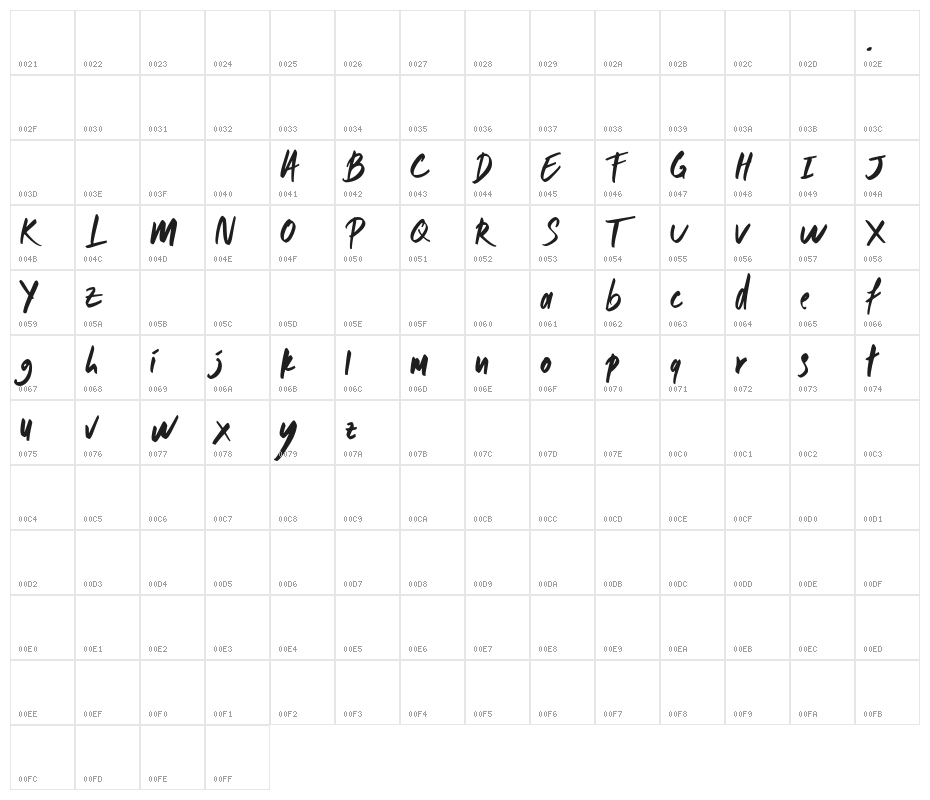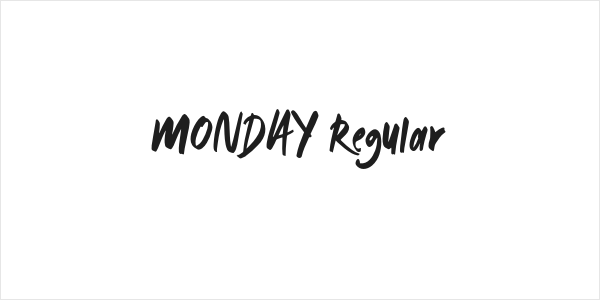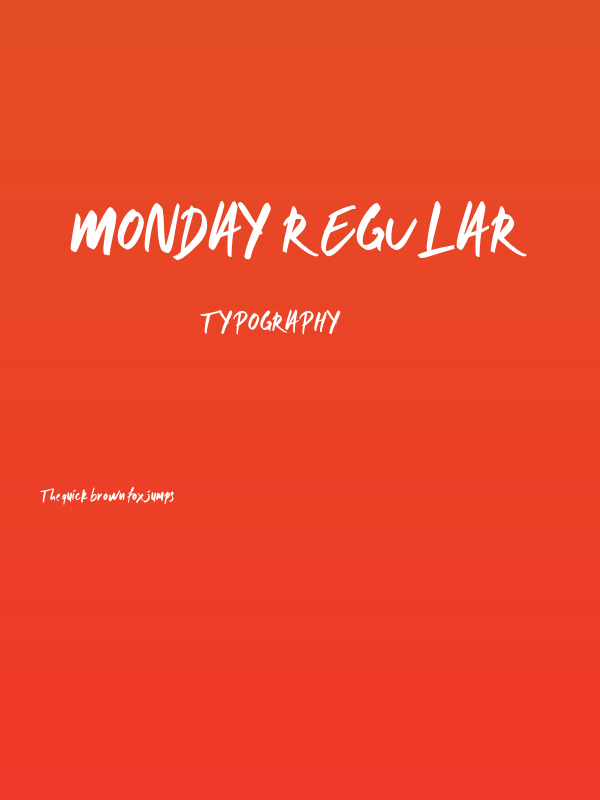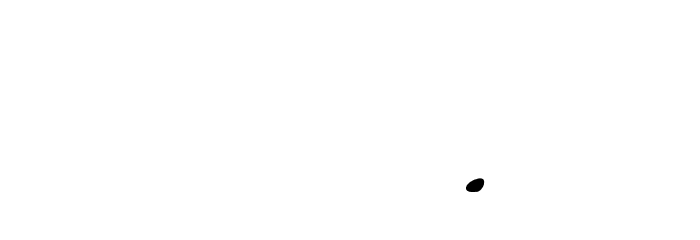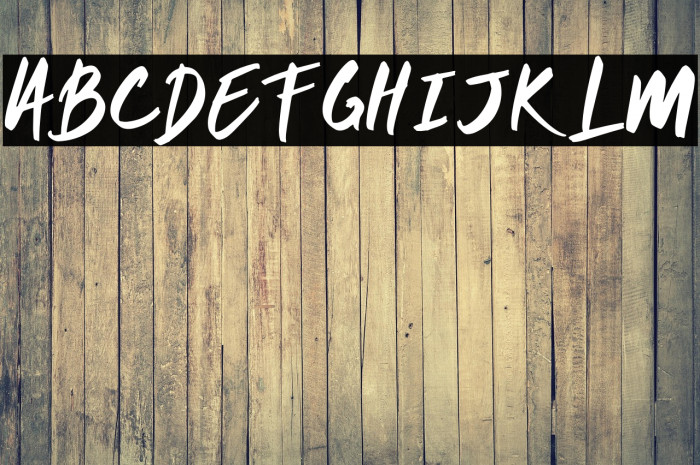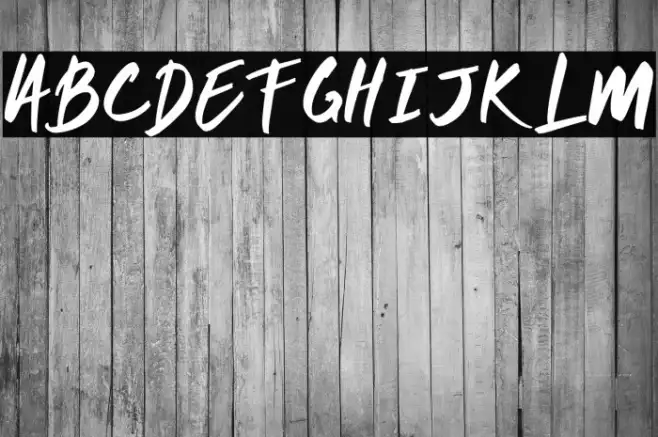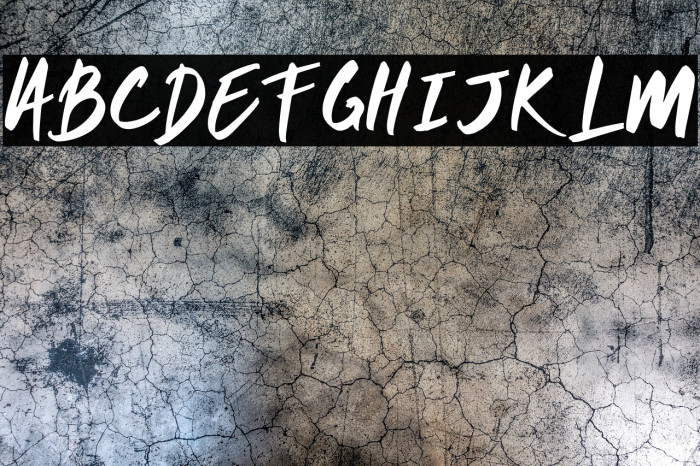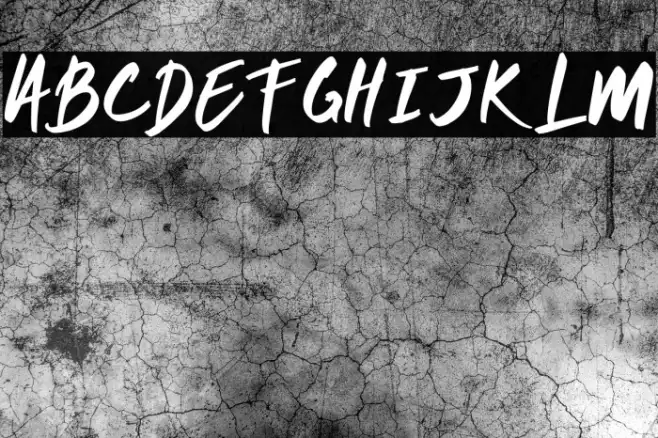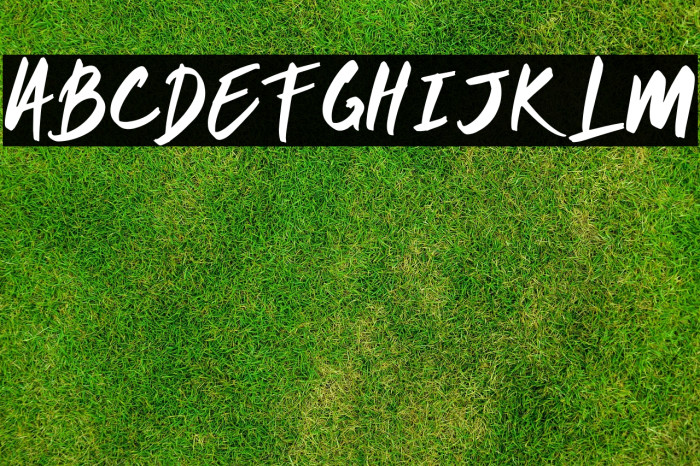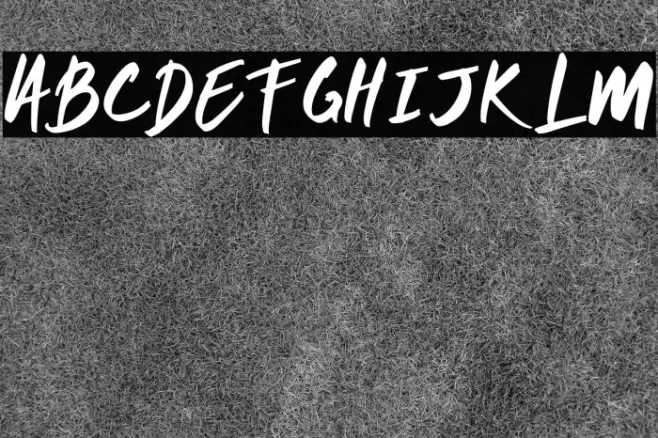
MONDAY-Regular Font
MONDAY-Regular Description
This font features a dynamic and expressive handwritten style, characterized by its bold and fluid strokes. The letters have a natural, organic flow, giving the impression of being quickly and confidently written with a brush or marker. The uppercase and lowercase letters maintain a consistent style, with some variation in stroke thickness that adds to the lively and energetic feel. The font's informal and artistic appearance makes it suitable for creative projects where a personal touch is desired. The overall design is modern and captures a sense of spontaneity and creativity.